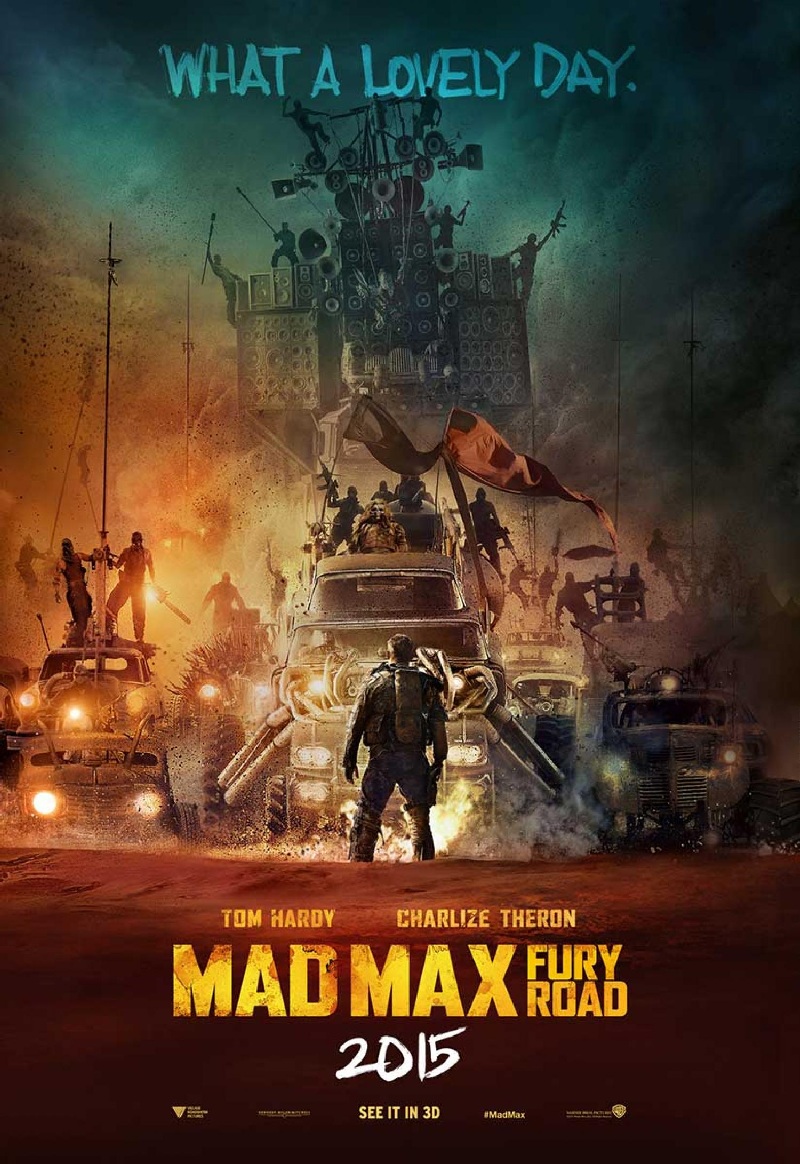
Mad Max: Fury Road Font
ActionMad Max: Fury Road is a 2015 Australian post-apocalyptic action film directed, produced, and co-written by George Miller. The film shows Max, a wanderer, and survivor teams up with Imperator Furiosa, a warrior rebel, to overthrow a tyrant who controls the land's water supply.
In the poster, the movie title is probably written in Agency FB with the Letter "M" altered. Agency typeface was created by Morris Fuller Benton in 1932 as a single titling typeface. In 1990, David Berlow recognized the potential of the squared outlines of the plain, monotone capitals. To create Font Bureau Agency, he developed a lowercase and bold.